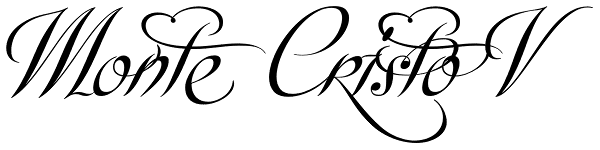
Monte Cristo
Monte Cristo picks up where Libertine left off, then makes a great leap forward to attain its luxuriously seductive personality. With a minimum of 4 variations on the uppercase letters, and up to 38 variations on the lowercase, the application...